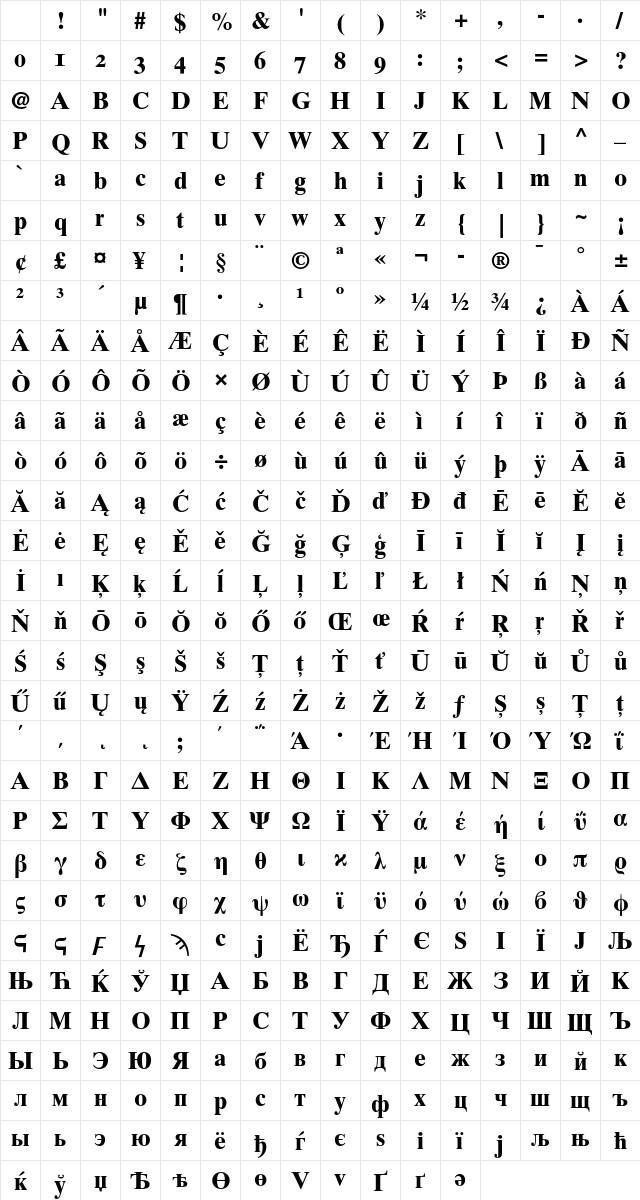
Complete Asteria Bold glyph index. Displaying only characters natively supported by Asteria Bold font.
Asteria is a composed and adaptable typeface that performs quietly and consistently across a wide range of design contexts. Its bold stroke weight gives it real presence on the page.